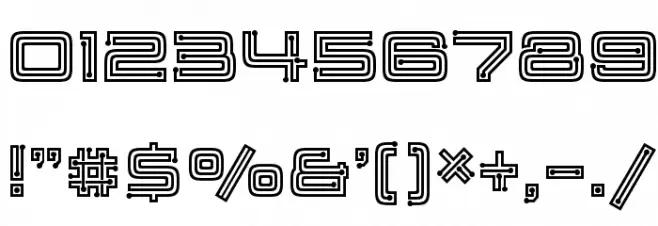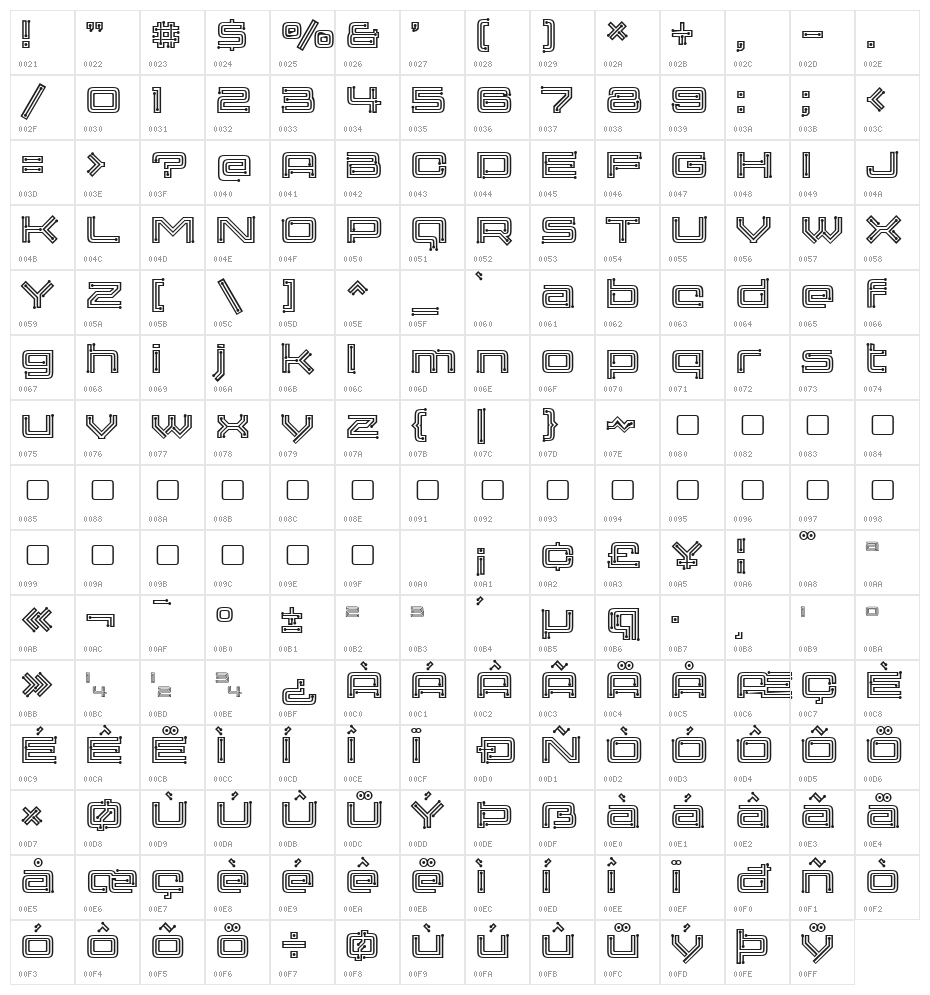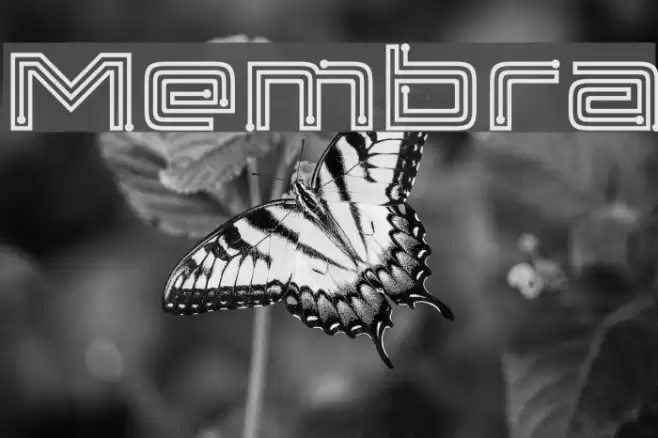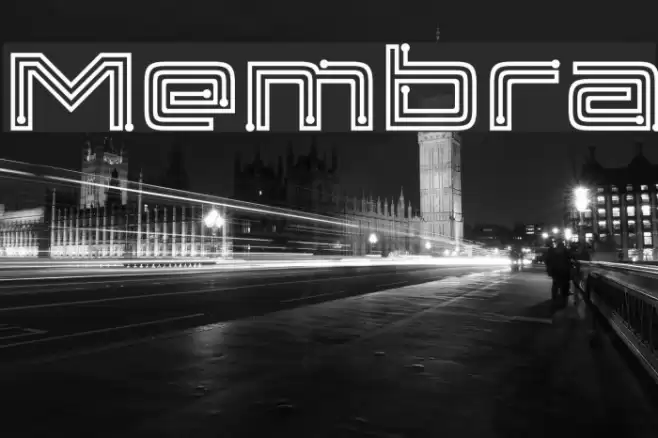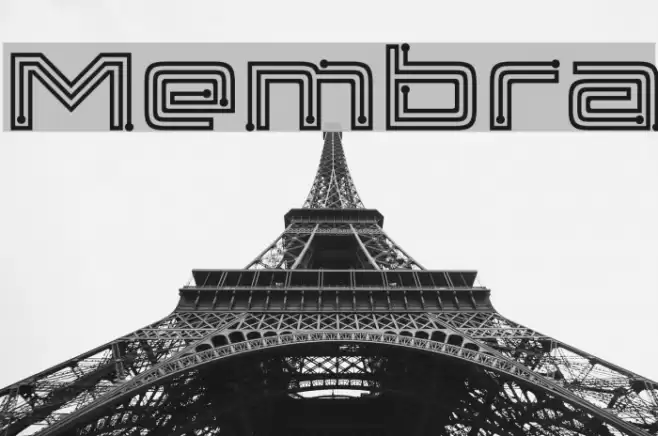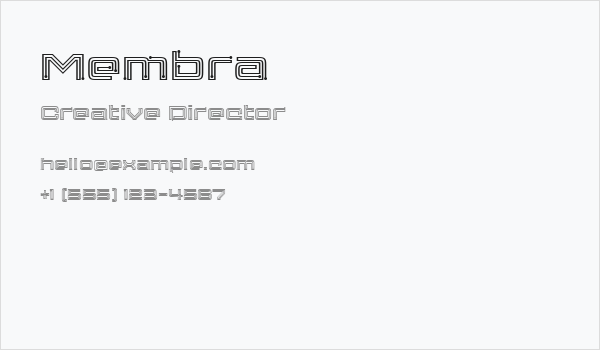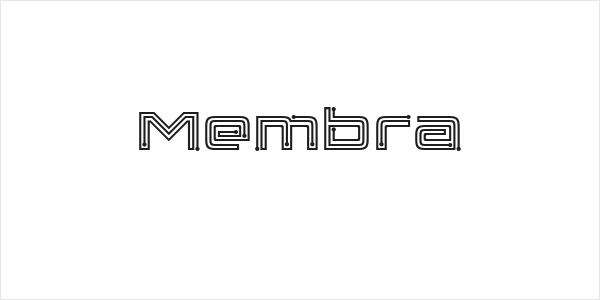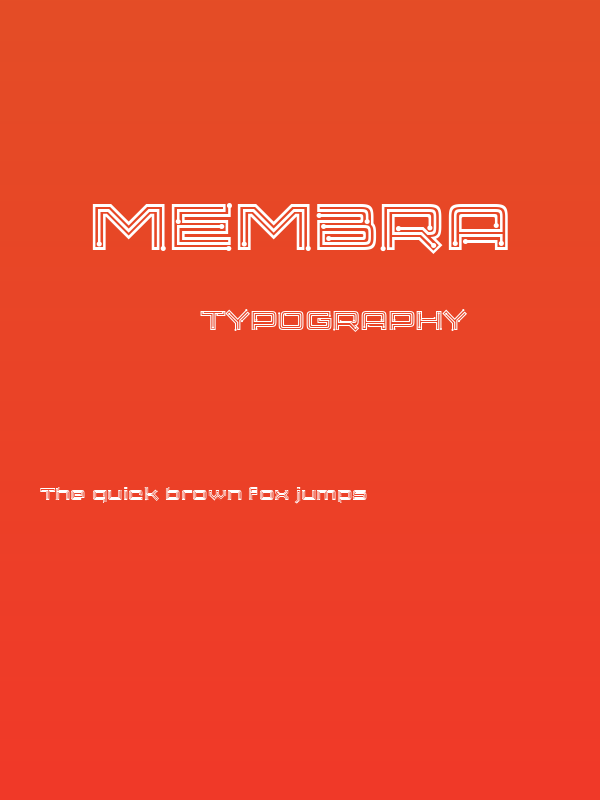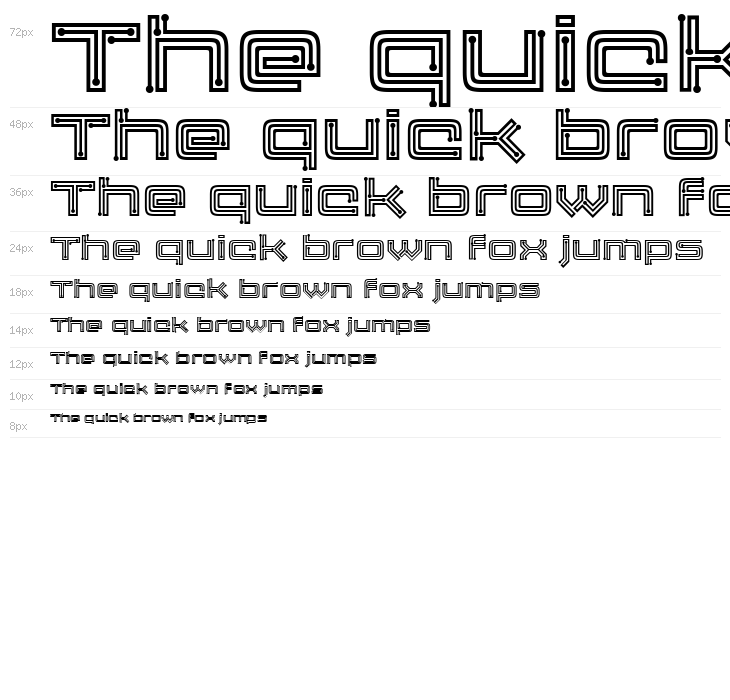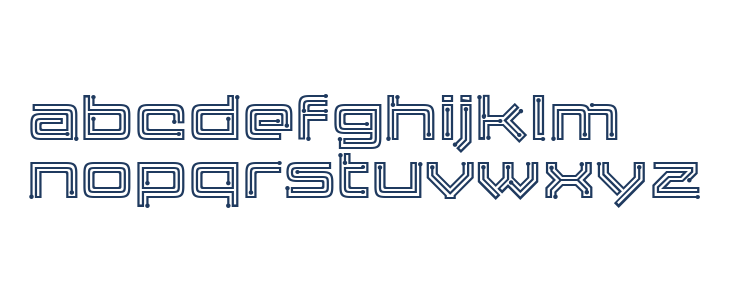
Membra Font
Membra Description
This font features a unique, futuristic design with a double-line structure that creates a sense of depth and dimension. The characters are geometric and angular, with a consistent stroke width that gives it a modern and technical appearance. The uppercase and lowercase letters maintain a uniform style, enhancing readability while still offering a distinct visual appeal. The numerals and special characters are crafted with the same attention to detail, ensuring a cohesive look across all elements. This font is ideal for projects that require a contemporary and innovative touch.
| Proposed Projects | Ideal for tech branding, sci-fi themed designs, video game interfaces, and modern advertising. |